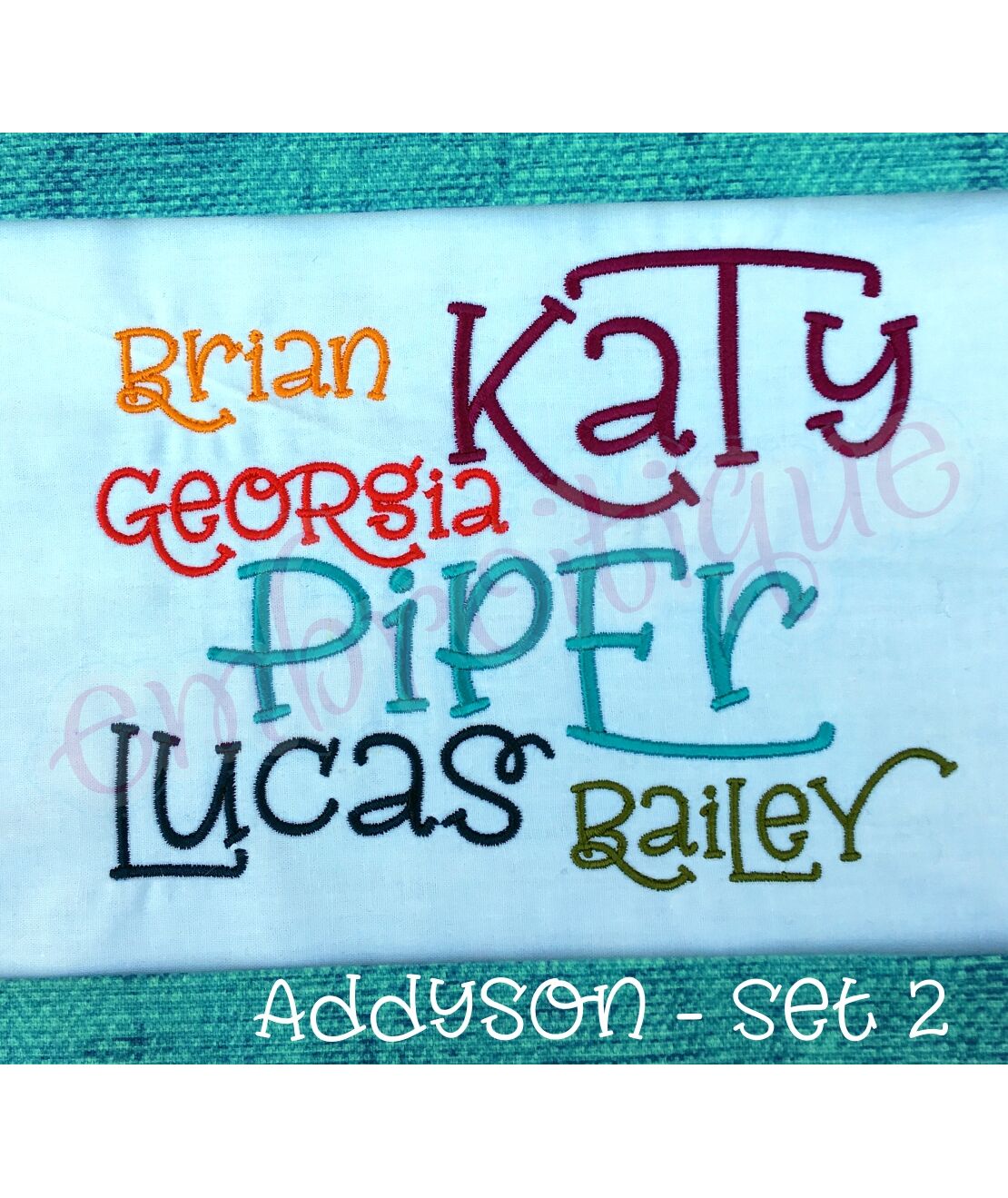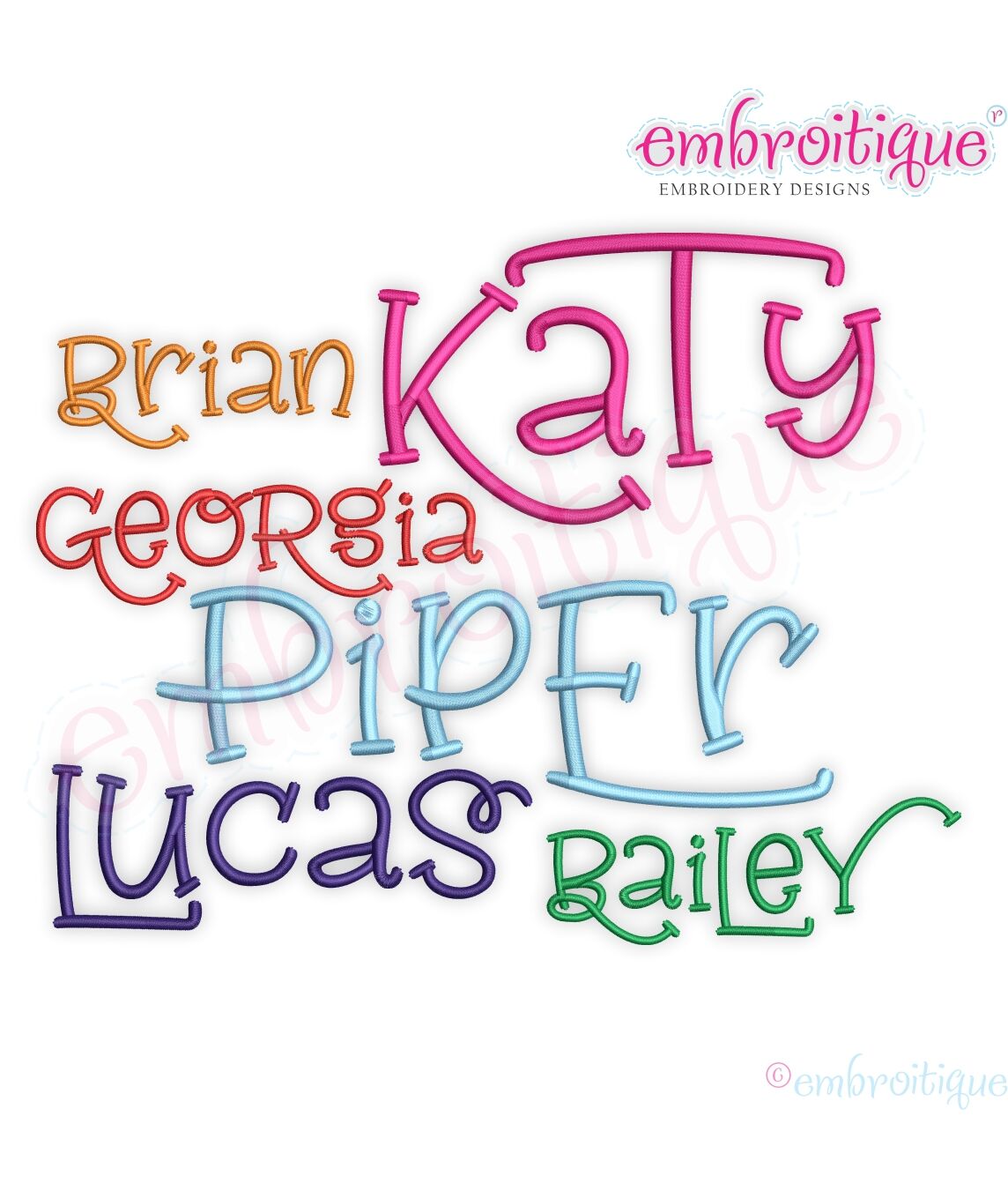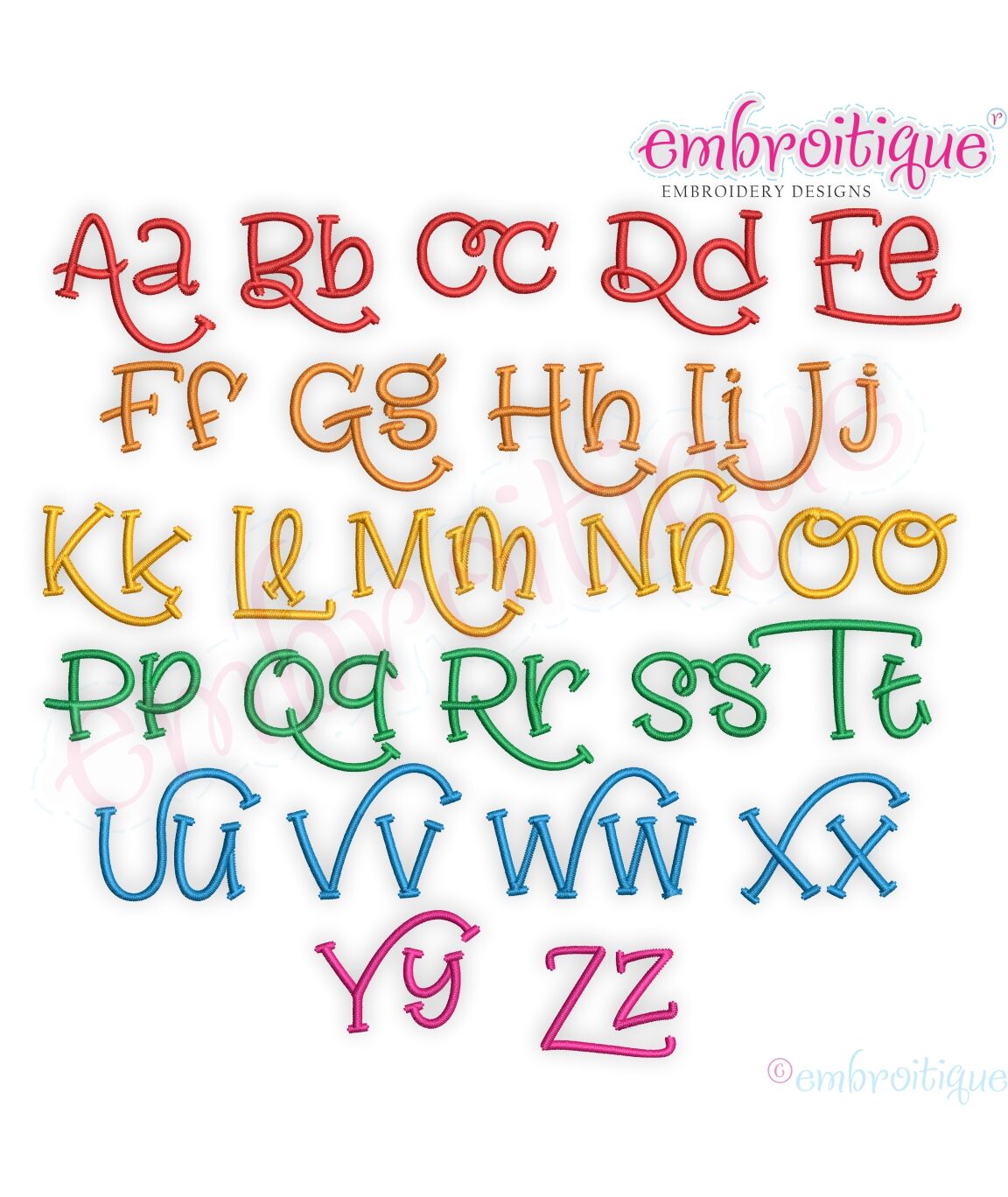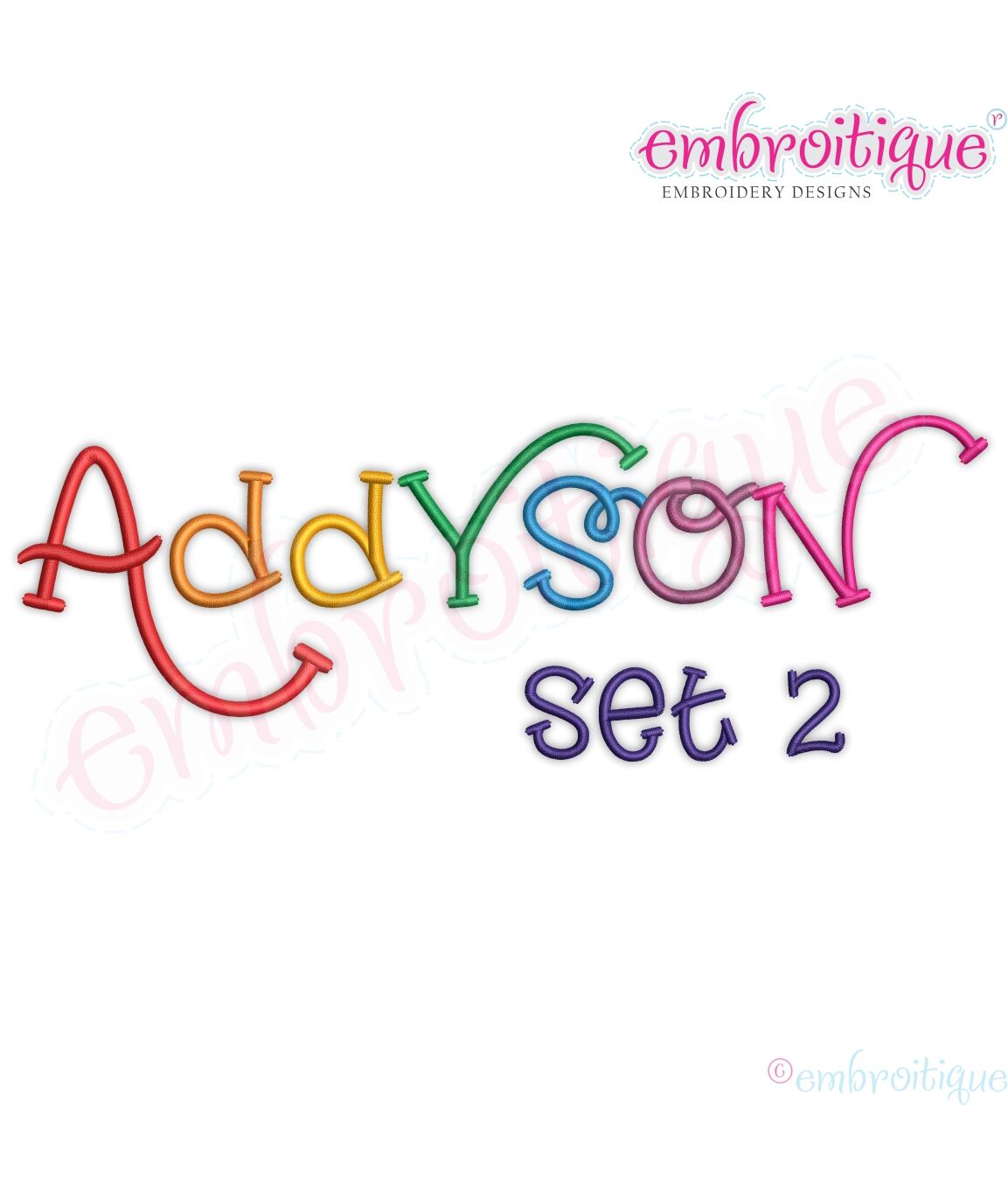
Addyson Set 2 Whimsical Machine Embroidery Alphabet Monogram Font - Great for Boys and Girls!
We love how versatile this set is! Great for boys and girls. This alphabet is interchangeable with our other 2 Addyson sets (sold separately). Stitch count and dimensions are based off the Capital A in each set. All letters in Addyson Sets 2 & 3 are proportionate to the capital A in set 1 SOLD HERE.